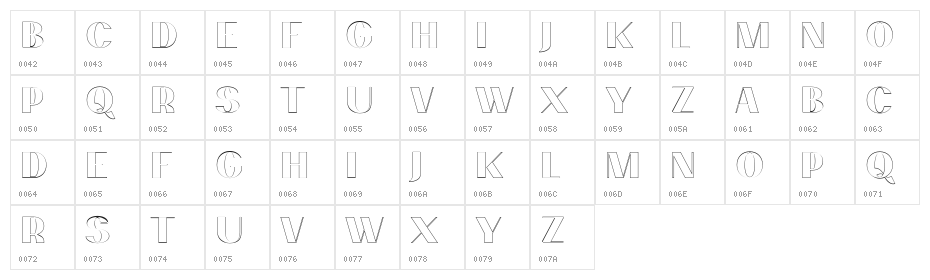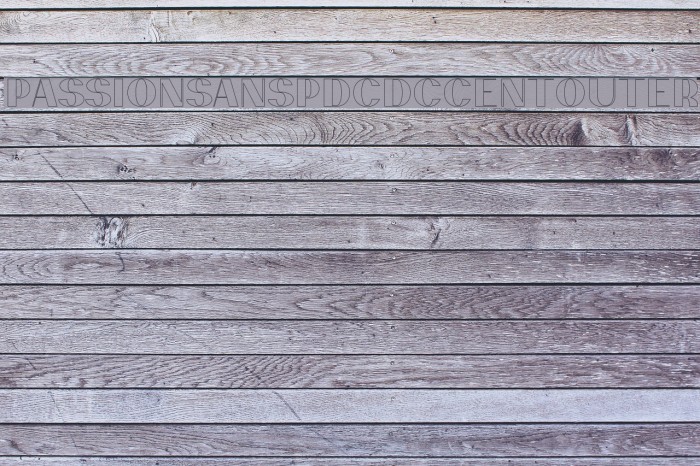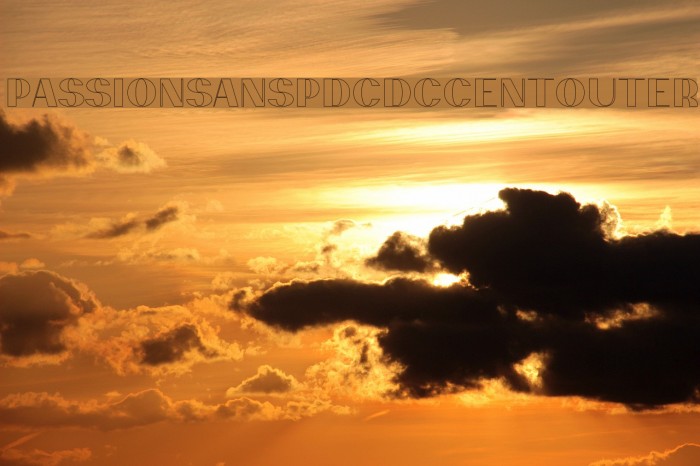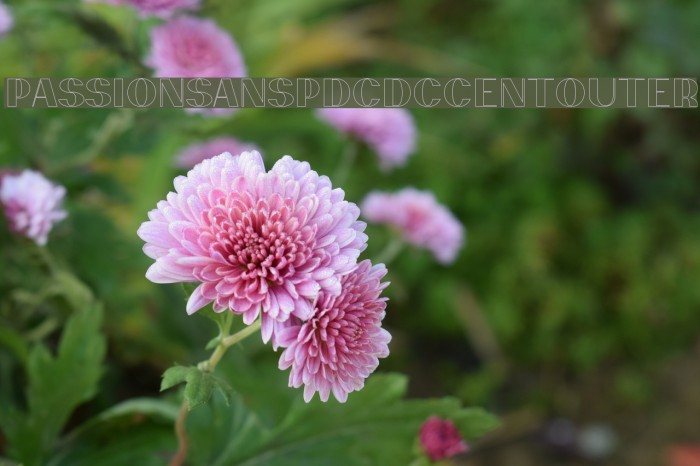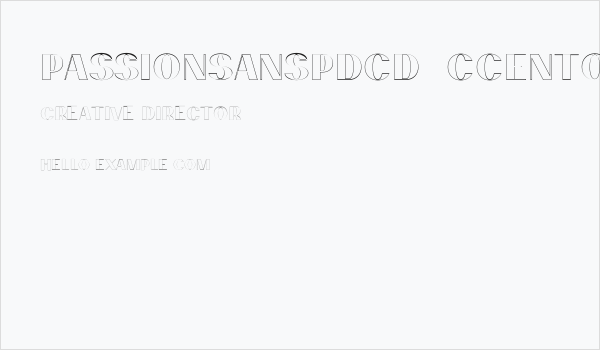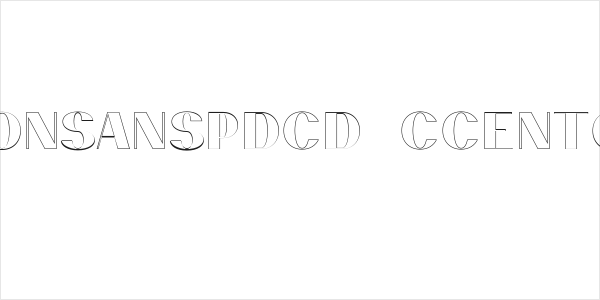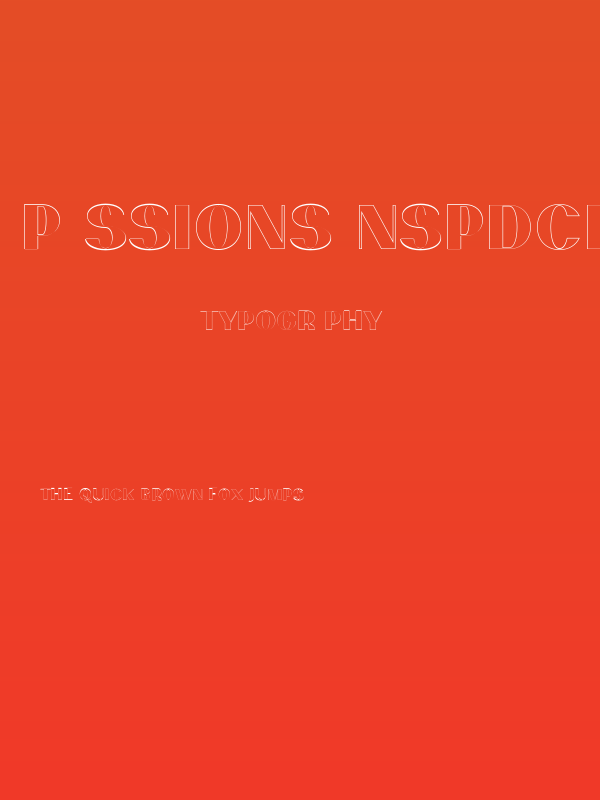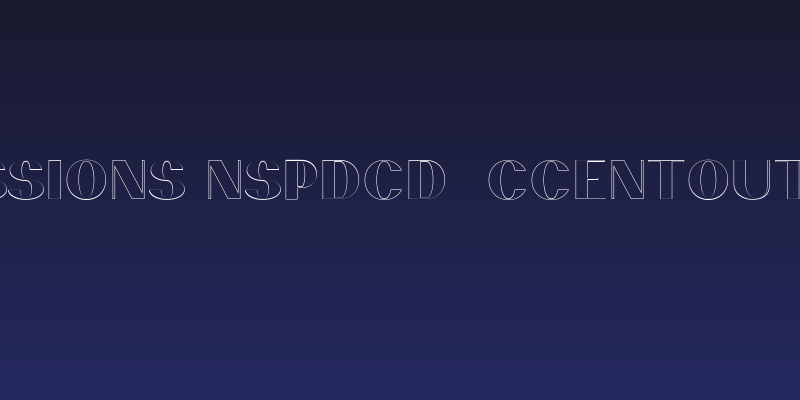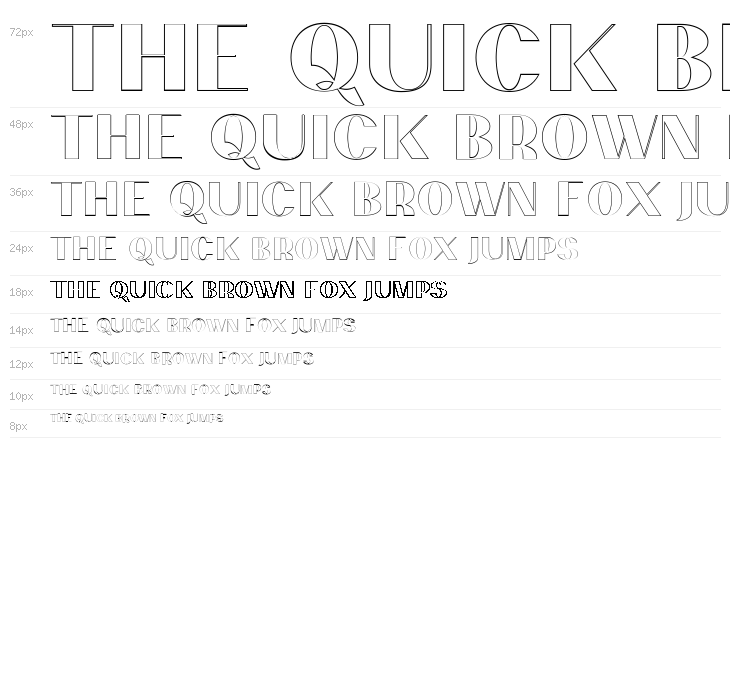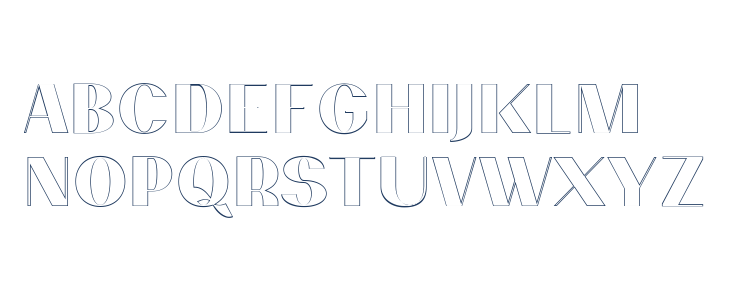
PassionSansPDcd-AccentOuter Font
PassionSansPDcd-AccentOuter Description
This font features a modern and clean design with a geometric structure. The characters are outlined, giving a hollow appearance that adds a unique touch to the overall style. The uppercase letters are bold and uniform, while the lowercase letters maintain a consistent height and width, ensuring readability. The font's design is minimalistic, with sharp edges and precise lines, making it suitable for contemporary projects. Its open structure allows for excellent legibility, even at smaller sizes. The font's versatility makes it ideal for various applications, from digital media to print.
| Proposed Projects | Ideal for branding, advertising, digital media, and print materials where a modern and clean look is desired. |